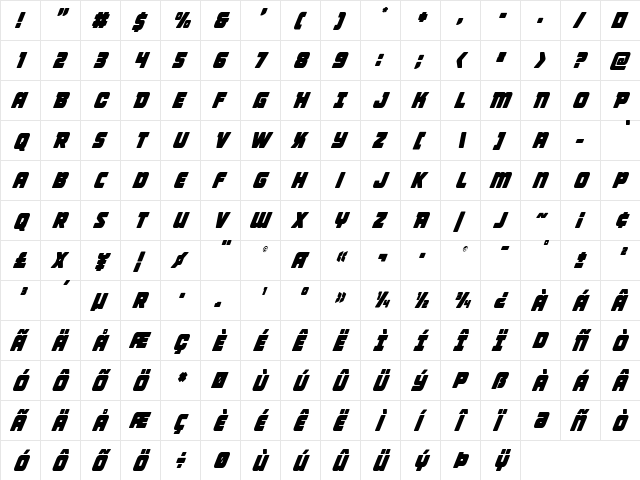
Victory Comics Condensed Italic Font Preview
Design Context for Victory Comics Condensed Italic Typeface
Victory Comics Condensed Italic has an approachable, lighthearted character — its loose, expressive forms are well-suited to children's content, casual branding, and fun-first design. The dynamic lean of this cut emphasises speed and emphasis in any layout.
Font Pairing: Pairs well with a rounded or humanist sans for body copy, maintaining the friendly tone without relying on Victory Comics Condensed Italic to carry extended reading.
Pro Tip: Avoid using Victory Comics Condensed Italic for long passages of text — it works best for headlines, labels, and short calls to action.